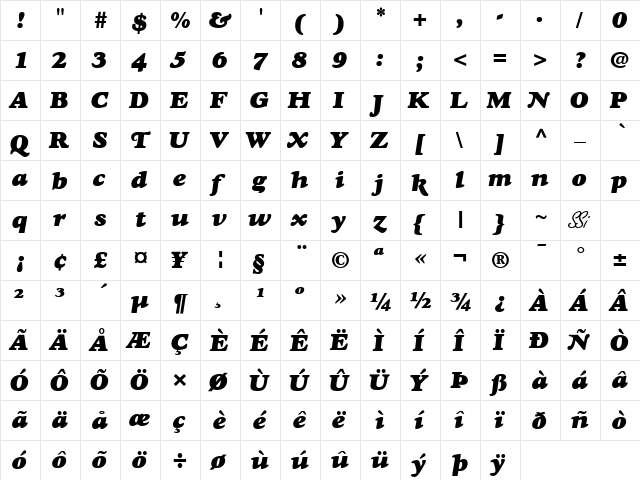
Goudy Black SSi Black Italic Font Preview
Goudy Black SSi Black Italic
| Style | Black Italic |
Design Context for Goudy Black SSi Typeface
Goudy Black SSi offers clean, dependable letterforms without strong stylistic allegiance, making it a practical choice for designers who need flexibility. Its italic angle brings a sense of urgency and motion to the letterforms.
Pro Tip: Try Goudy Black SSi for annotation and caption copy alongside an upright companion — the contrast in angle creates a dynamic but ordered typographic system.